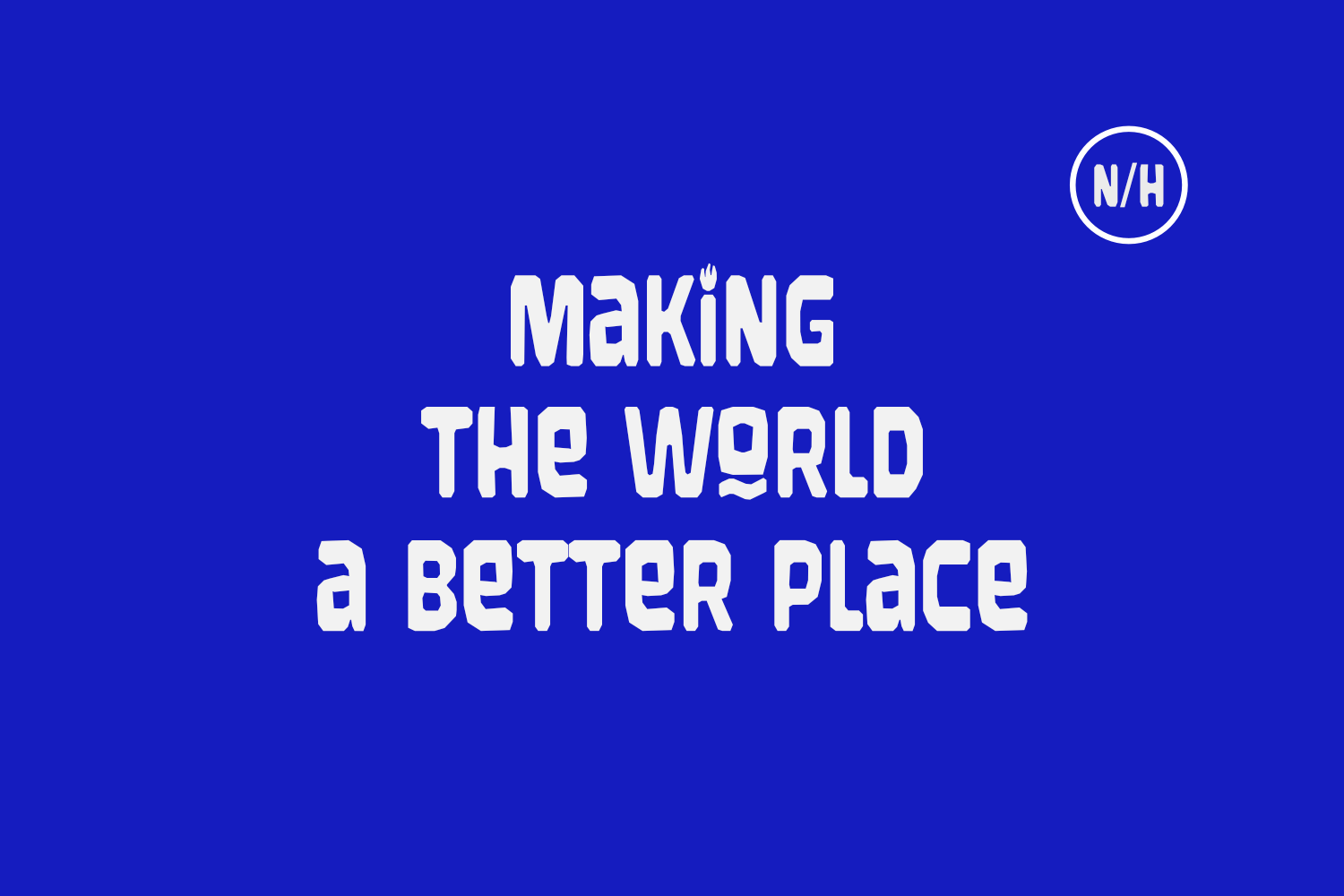
Juicy Gossip Display Font
It’s a bold, robotic and thick lettered display font. No matter the topic, this font will be an incredibly asset to your fonts’ library, as it has the potential to elevate any creation.